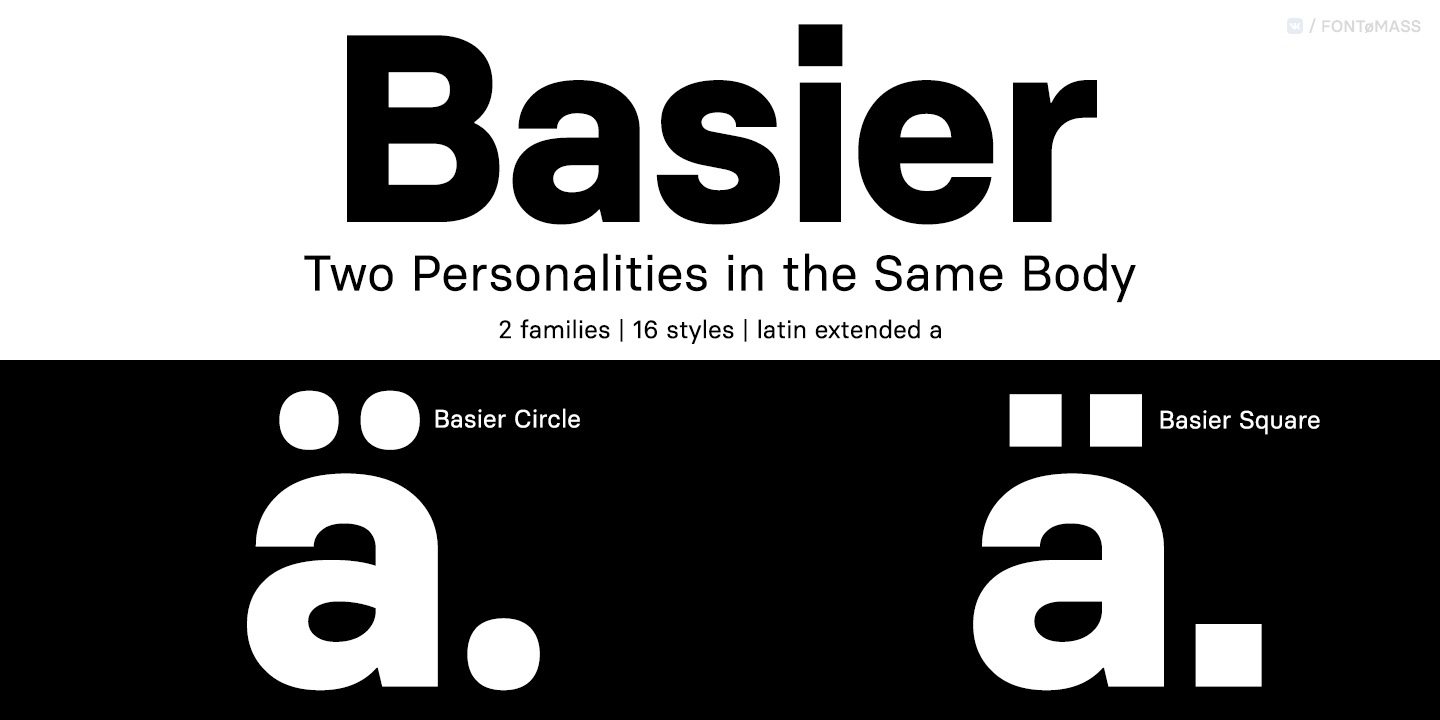
Basier Font
This versatile sans-serif typeface is perfect for modern corporate branding, clean web interfaces, minimalist product packaging, contemporary editorial design, tech startup identities, professional presentations, mobile app development, and streamlined marketing communications.
What makes this font exciting is its perfect synthesis of geometric precision and humanist warmth that creates exceptional versatility across both digital and print applications. The carefully balanced proportions and neutral character make it incredibly adaptable, while the subtle personality ensures it never appears sterile or impersonal, striking the ideal balance between professionalism and approachability that modern brands demand.
The Basier Font family includes thin, light, regular, medium, bold, and black weights, each with matching italics, providing designers with comprehensive typographic flexibility for complex brand systems and multi-platform communications.
Basier Font Free Download offers creative professionals an outstanding foundation for building cohesive brand identities that work seamlessly across all media. This meticulously crafted typeface excels in creating clear visual hierarchies and maintaining brand consistency, making it ideal for financial services, healthcare organizations, educational institutions, and technology companies seeking typography that communicates reliability, clarity, and forward-thinking innovation.
The distinctive character of Basier Font lies in its remarkable adaptability without sacrificing personality or readability. Each letterform has been optimized for both screen rendering and print reproduction, ensuring consistent performance across websites, mobile applications, signage, and traditional print materials. This technical excellence makes it particularly valuable for responsive web design, user interface development, annual reports, and comprehensive brand guidelines where consistent visual communication is essential.
Professional designers will appreciate this font's ability to serve as a reliable workhorse for diverse design challenges. From corporate websites to product catalogs, from mobile banking apps to architectural signage, Basier Font delivers consistent performance and visual appeal. The font's extensive OpenType features include multiple figure styles, fractions, and language support, ensuring international usability while maintaining the clean, contemporary aesthetic that defines modern professional communication standards across industries and platforms requiring trustworthy, accessible typography solutions.